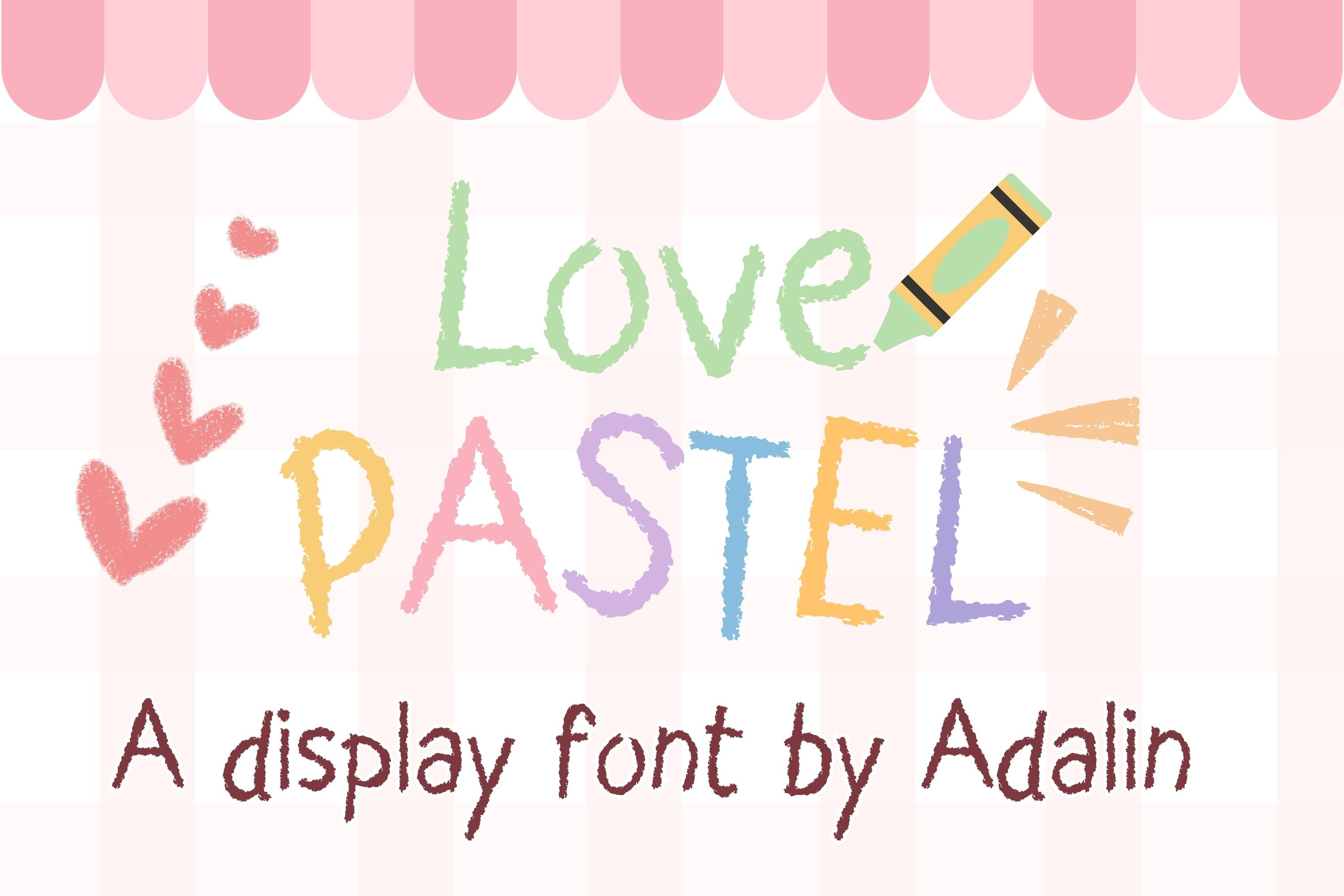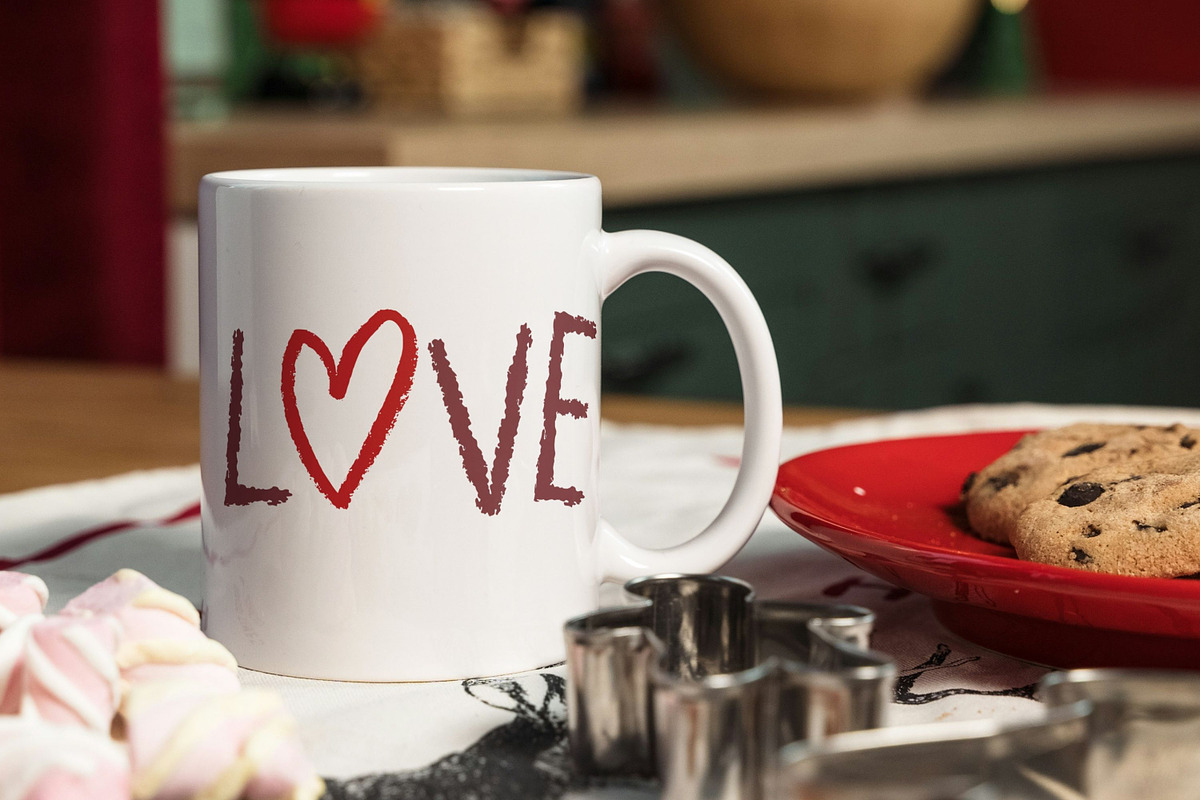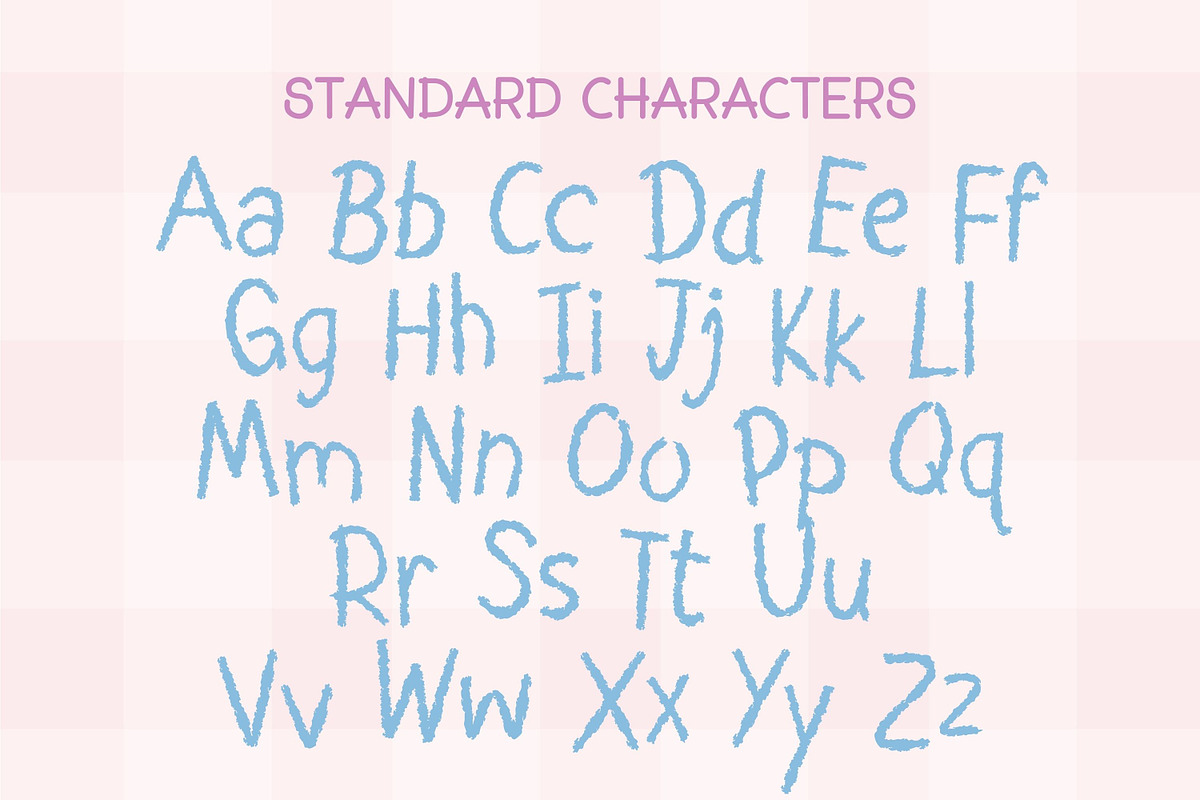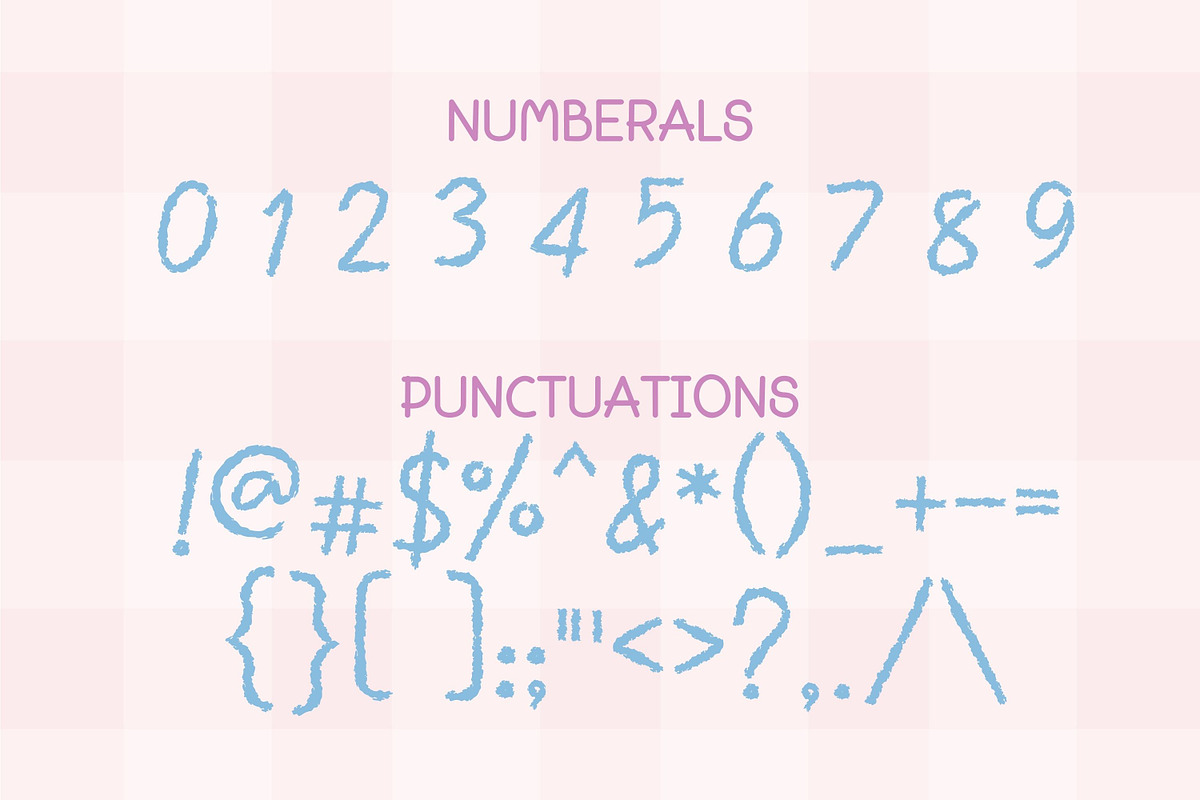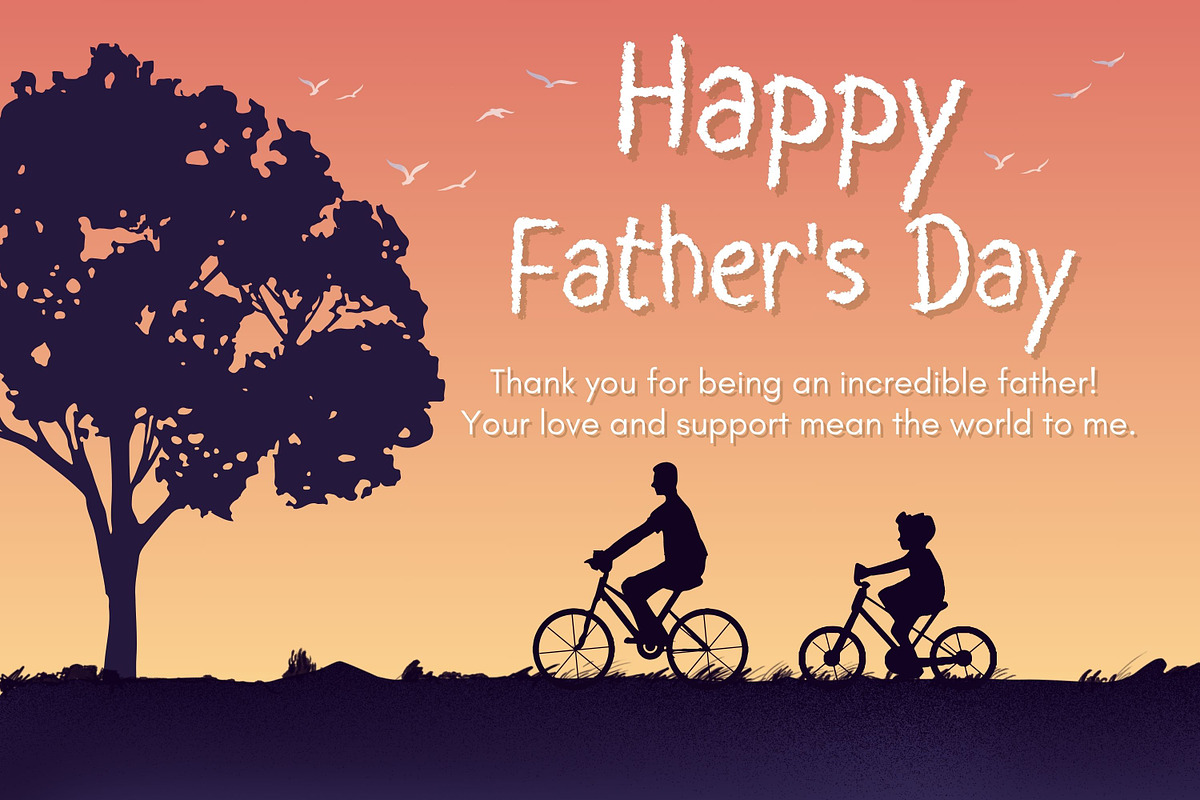
Love Pastel Font
Indulge in the enchanting charisma of Love Pastel font – a captivating font that flawlessly marries beauty and functionality. Love Pastel font can effortlessly blend into a myriad of projects – from enhancing gift labels and beautifying book jackets, to revitalizing posters and strengthening packaging, personalizing products, defining logos, and beyond. Plunge into the rejuvenating allure of Love Pastel font and embrace a universe where craftsmanship intertwines with imagination.